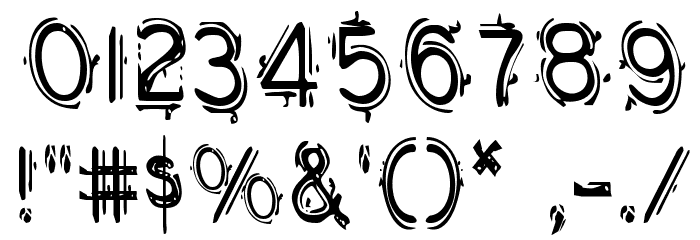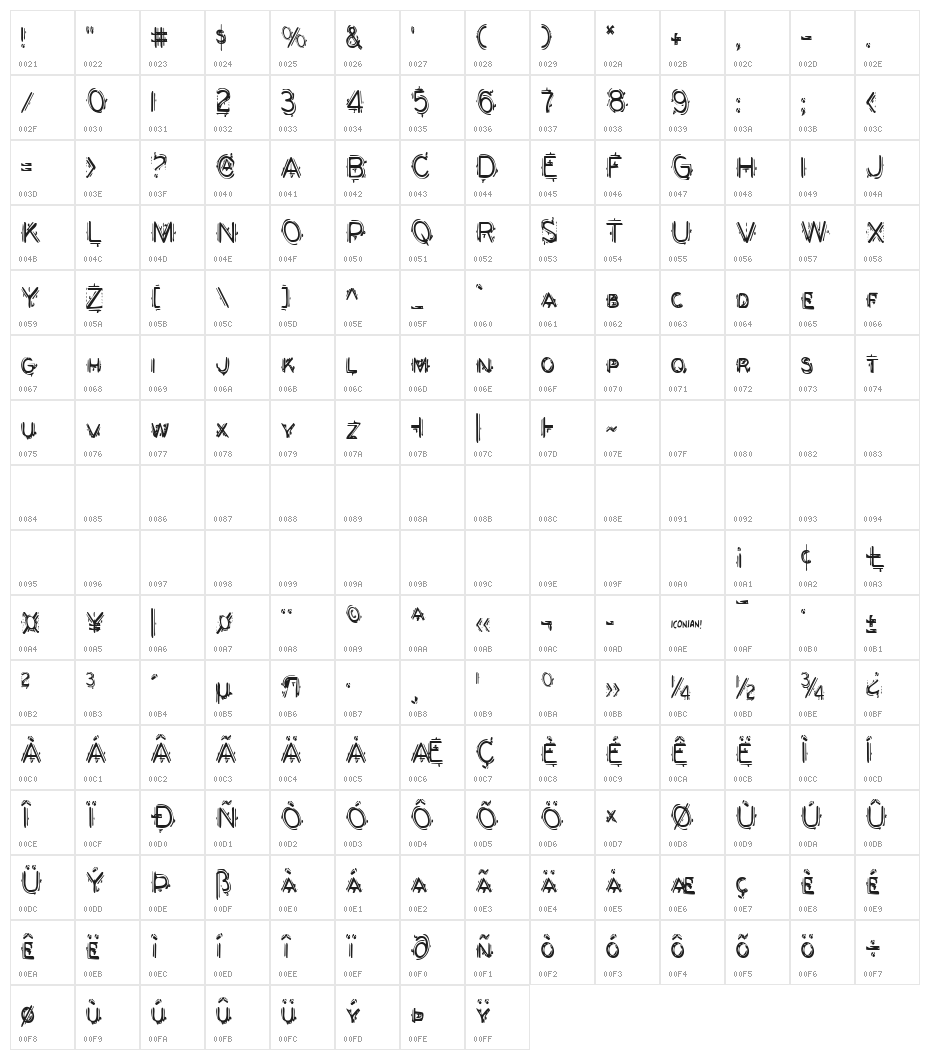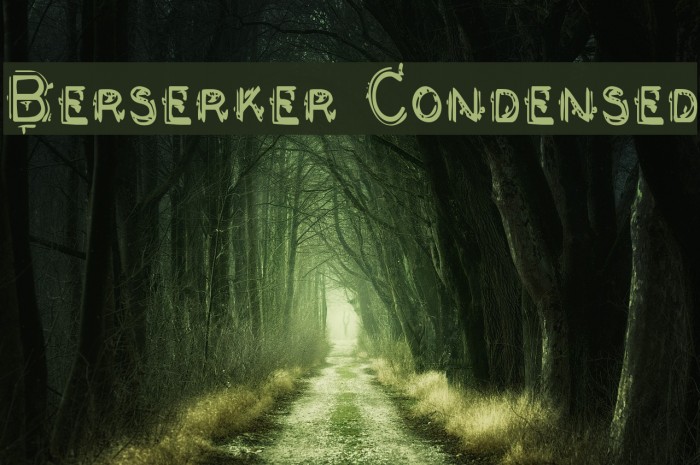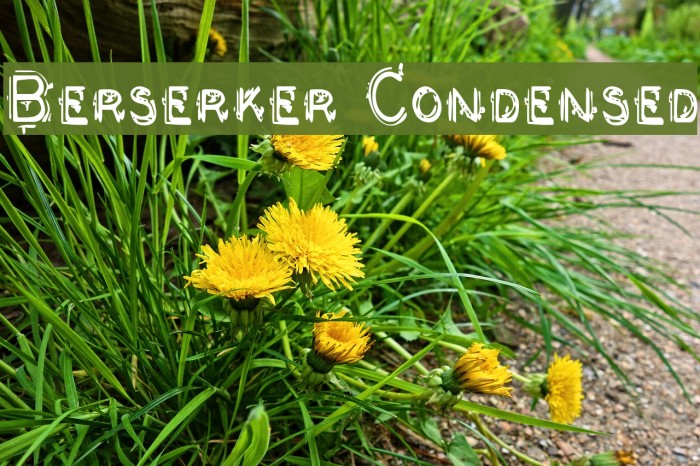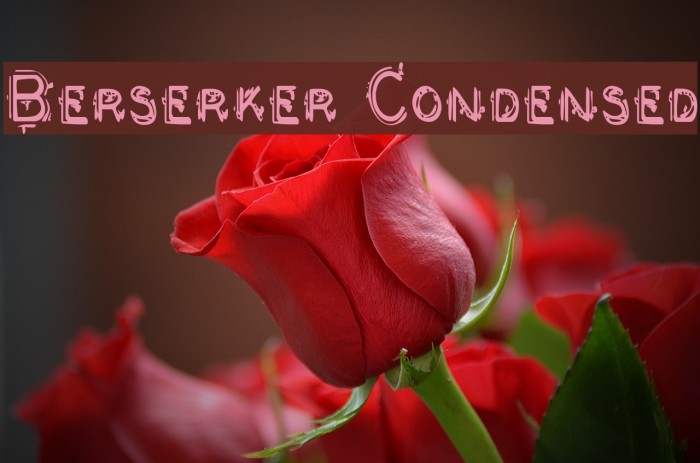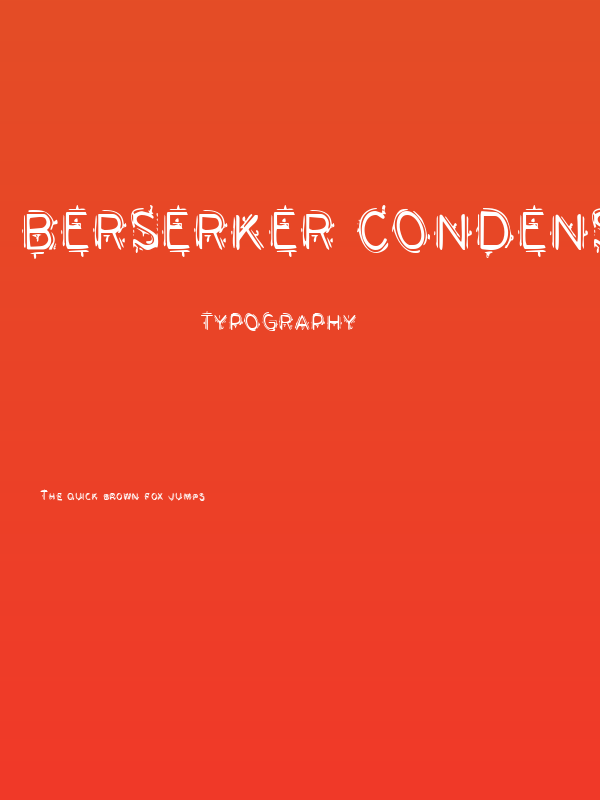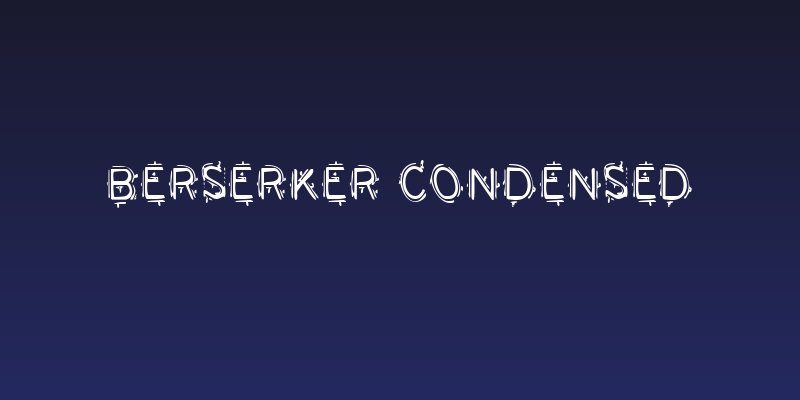
Berserker Condensed Font
Berserker Condensed Description
This font features a bold and edgy design with a distressed, grunge-like appearance. Each character is marked by irregular, jagged edges and a rough texture, giving it a chaotic and rebellious feel. The letters are condensed, enhancing the compactness and intensity of the style. The uppercase and lowercase letters maintain a consistent aesthetic, with numbers and special characters following suit. This font's unique style makes it stand out, ideal for projects that require a strong, impactful visual statement.
BERSERKER-CONDENSED UPPERCASE
BERSERKER-CONDENSED LOWERCASE
BERSERKER-CONDENSED OTHER CHARS